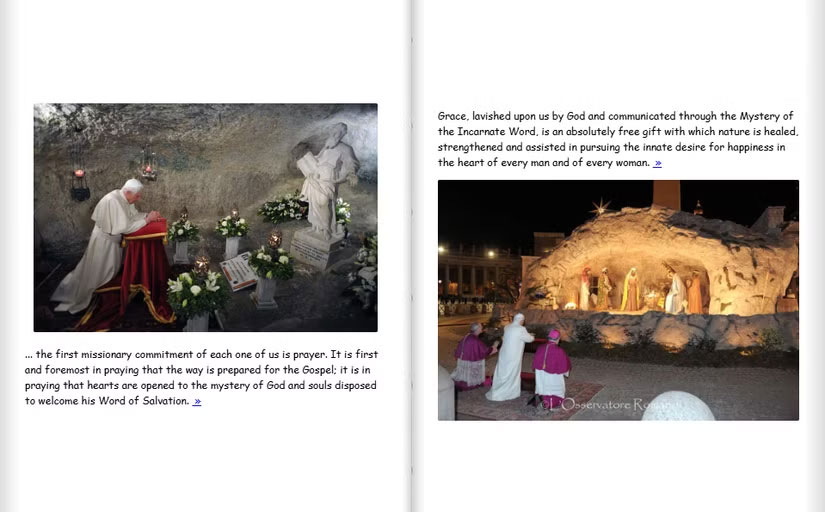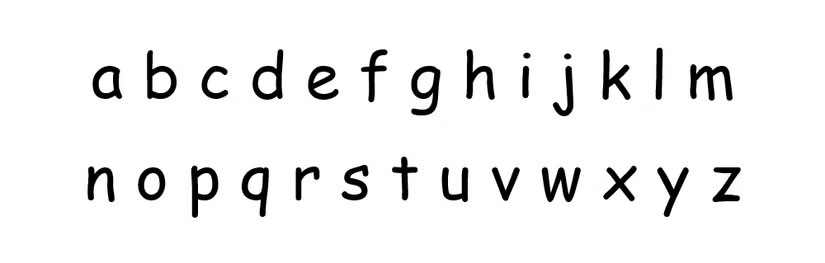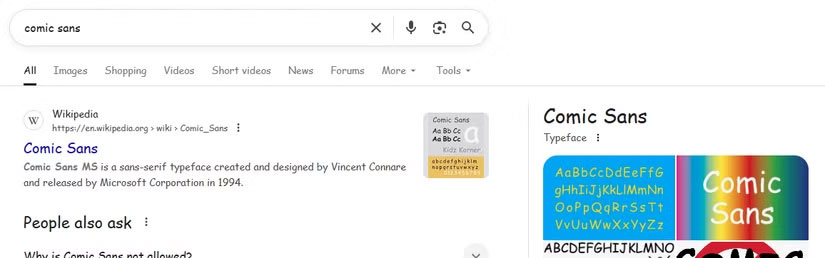
Comic Sans – a font once created by Microsoft for comic books – has now become the most hated font in the world.
For decades, many people who are usually very calm can "get angry" just by seeing a seemingly harmless and cheerful font: Comic Sans . From birthday cards, posters, wedding invitations to road signs, the appearance of Comic Sans almost always creates controversy.
How was Comic Sans born?
In 1994, when Vincent Connare designed Comic Sans, he probably had no idea that more than 30 years later, the font would still be at the center of the 'keyboard wars'.
The story begins when Tom Stevens, a program manager at Microsoft, walks into Connare's office to ask for his opinion on the font used in the newly released Microsoft Bob software. In it, the cartoon dog character Rover is drawn with speech bubbles. but is in Times New Roman. Connare immediately jokes: 'Dogs can't talk in Times New Roman' .
From there, he took inspiration from comics, especially Dave Gibbons's drawings in Watchmen , and began sketching out each character to create Comic Sans – a handwritten, fun, friendly typeface that is true to the comics.
Comic Sans didn't make it into Microsoft Bob, but it did make an appearance in Microsoft 3D Movie Maker and later became one of the default fonts of Windows 95, spreading around the world through Microsoft Word.
What surprises Connare is how often his legacy is misused: from Pope Benedict XVI's official photo album, to CERN's Higgs boson diagram, to the prestigious Copa del Rey trophy. Someone has clearly chosen Comic Sans for use in extremely formal documents – which is hard to understand.
Comic Sans still has its value
Despite being 'hated', Comic Sans still has its place in some special cases.
- Dyslexia support: Many organizations, including The British Dyslexia Association , recommend Comic Sans because the letters are designed to be clear, simple, easy to distinguish, and less confusing. It is also popular with people with ADHD and learning disorders.
- Primary Education: Comic Sans resembles the simple single-stroke handwriting that children are learning to write, especially the letters 'a' and 'g'. As such, it is often used in teaching materials.
- Social campaign: In 2014, the Comic Sans for Cancer Movement used the font to raise funds for cancer research, attracting artists from 38 countries and millions of views.
Why is Comic Sans so divisive?
Partly because people like to have something to argue about, Comic Sans has become such an easy symbol to mock, that websites like Comic Sans Criminal Have even been created to 'educate' users on proper usage.
On the contrary, the Comic Sans Project Group stood up to 'defend' it, even editing famous logos into Comic Sans versions for fun.
This contradiction has made the font a pop culture phenomenon. CERN once trolled the world by announcing that it would use Comic Sans for all of its documents. Google joined in the fun by displaying search results for 'Comic Sans' in the font itself.
In short, Comic Sans may be hated, ridiculed, but it also has a surprising amount of value. It is not just a font, it has become a cultural icon – something we recognize and also argue about.
Love it or hate it, Comic Sans is here to stay. And who knows, maybe in a few decades it will appear on traffic signs, storefronts, and government documents, continuing to fuel a never-ending debate.
In practical terms, comic Sans – a font once created by Microsoft for comic books – has now become the most hated font in the world.